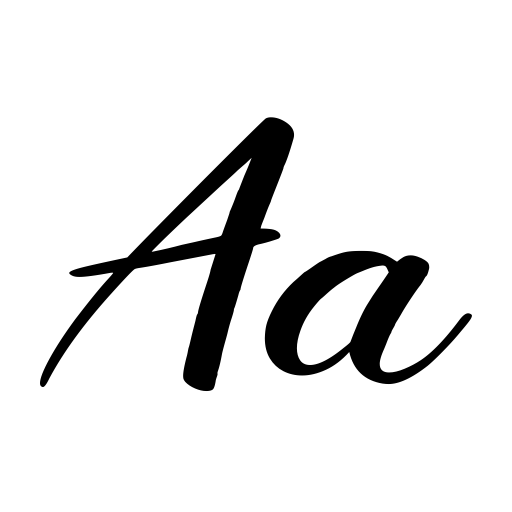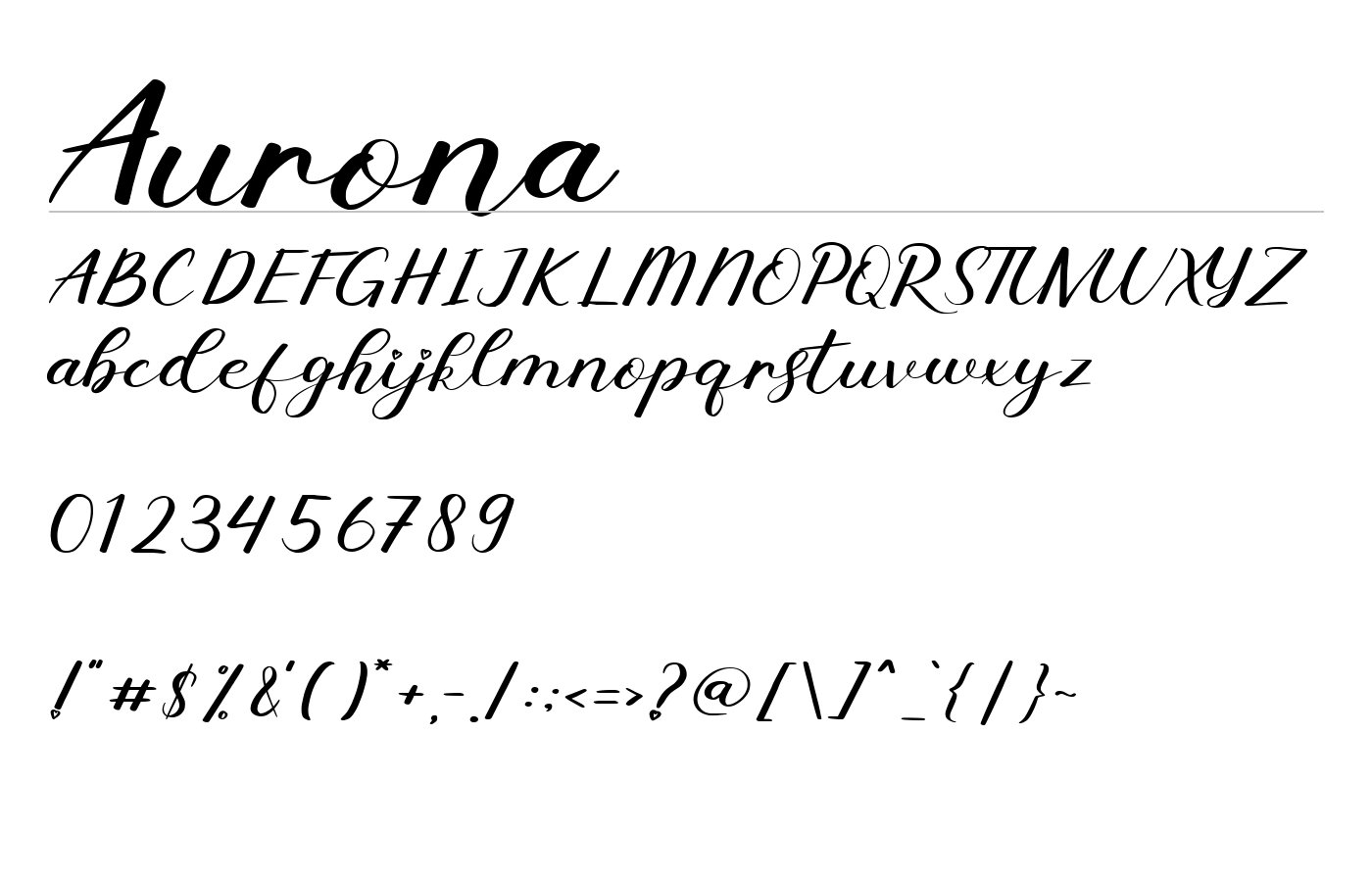
Aurona is an elegant script font with a smooth, flowing style and moderate contrast in stroke weight, giving it a graceful and modern handwritten feel. Its delicate curves and slight slant make it perfect for stylish branding, invitations, and editorial use where a touch of sophistication and warmth is desired. The font’s legible yet artistic letterforms also work well in logos and headlines, bringing a personal and refined character to any design.
Aurona Font